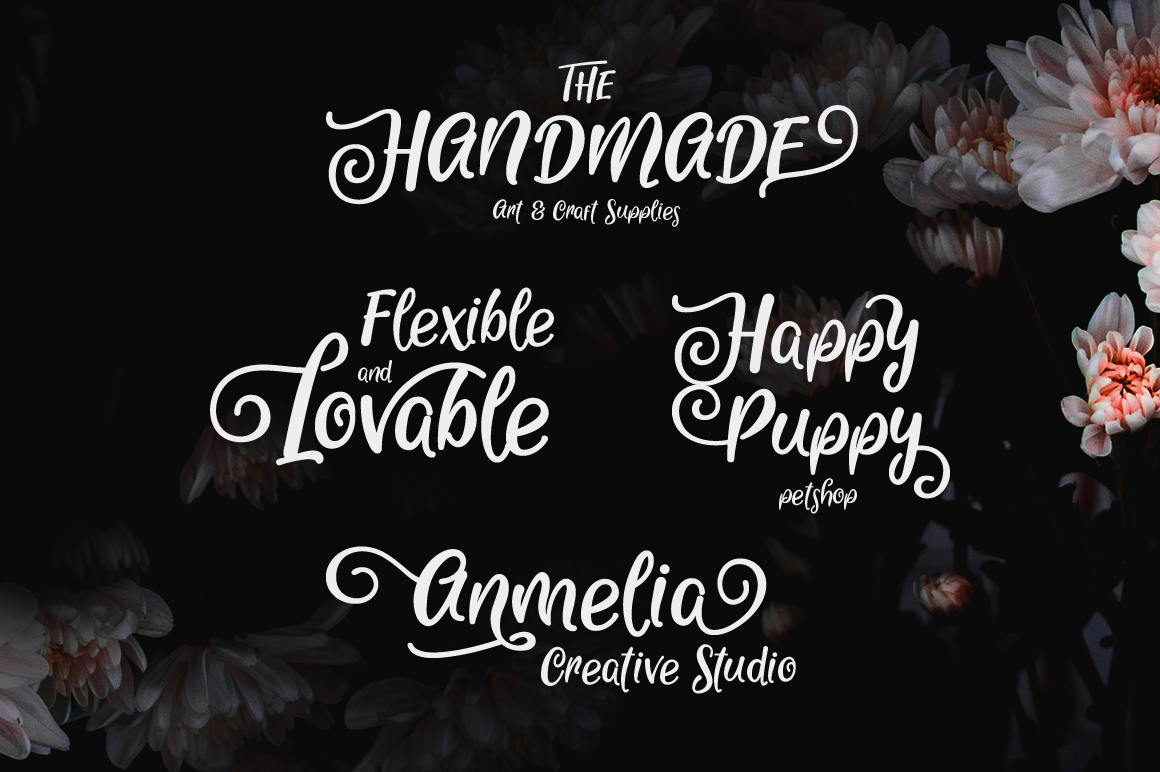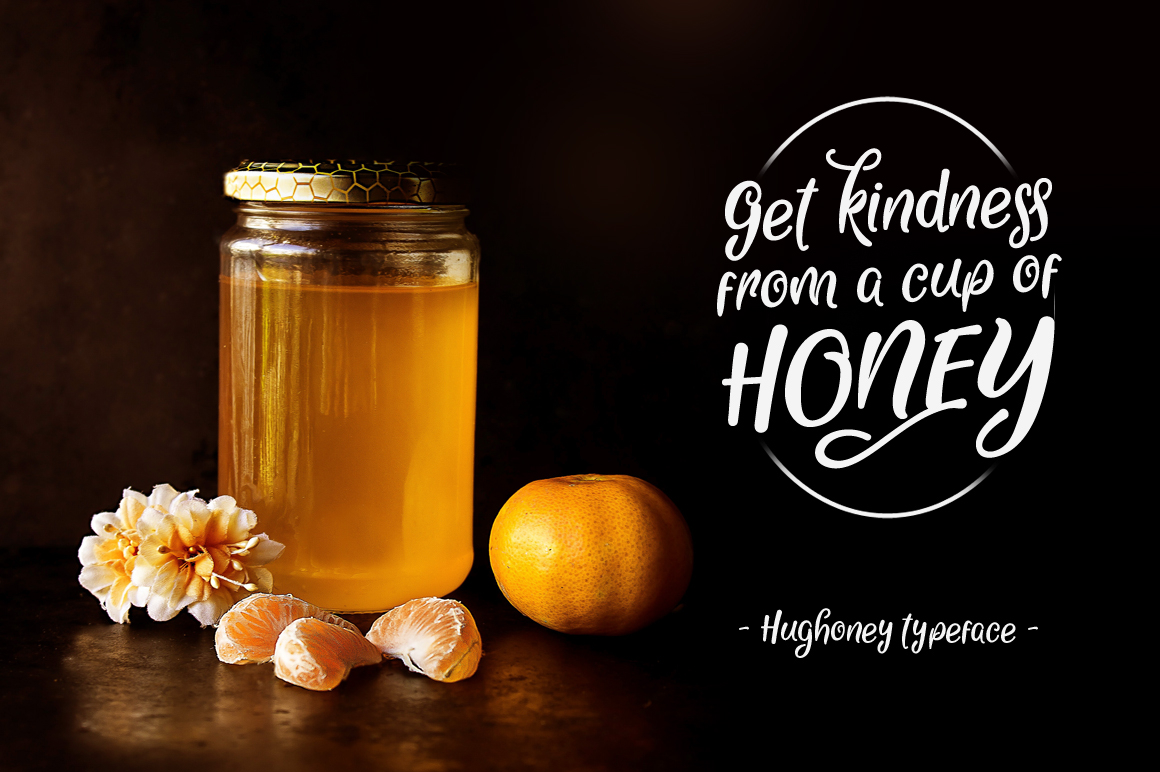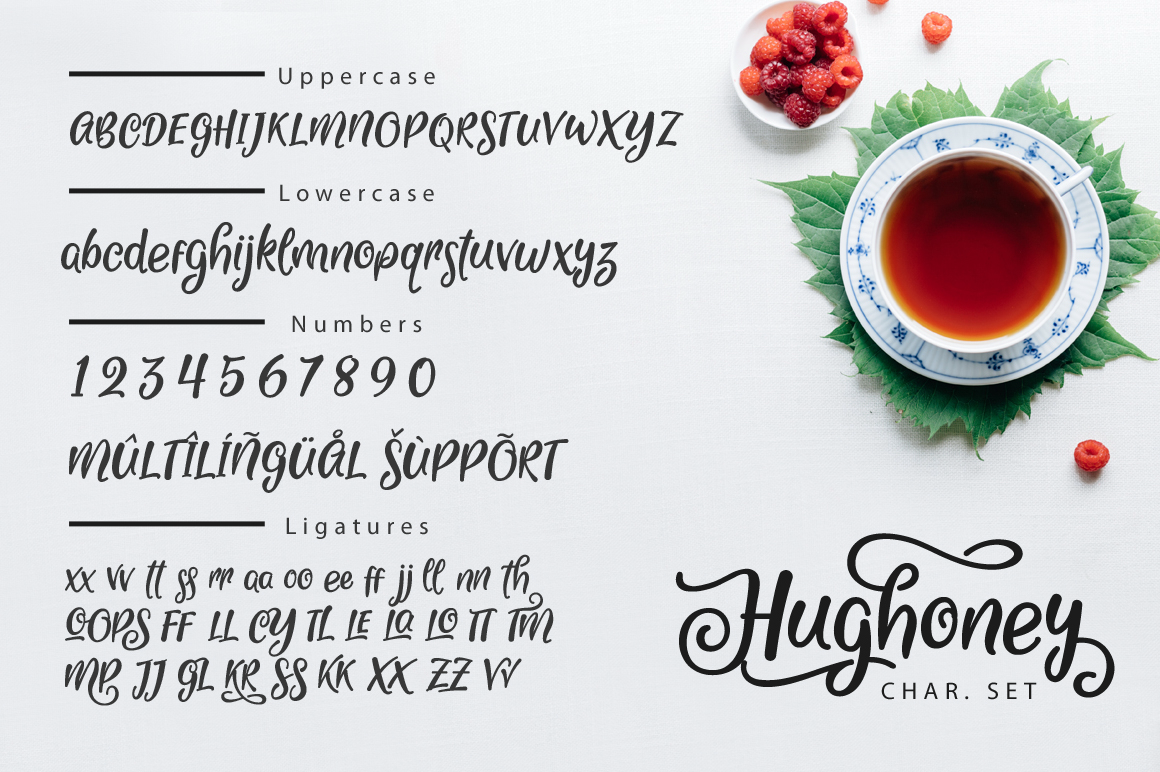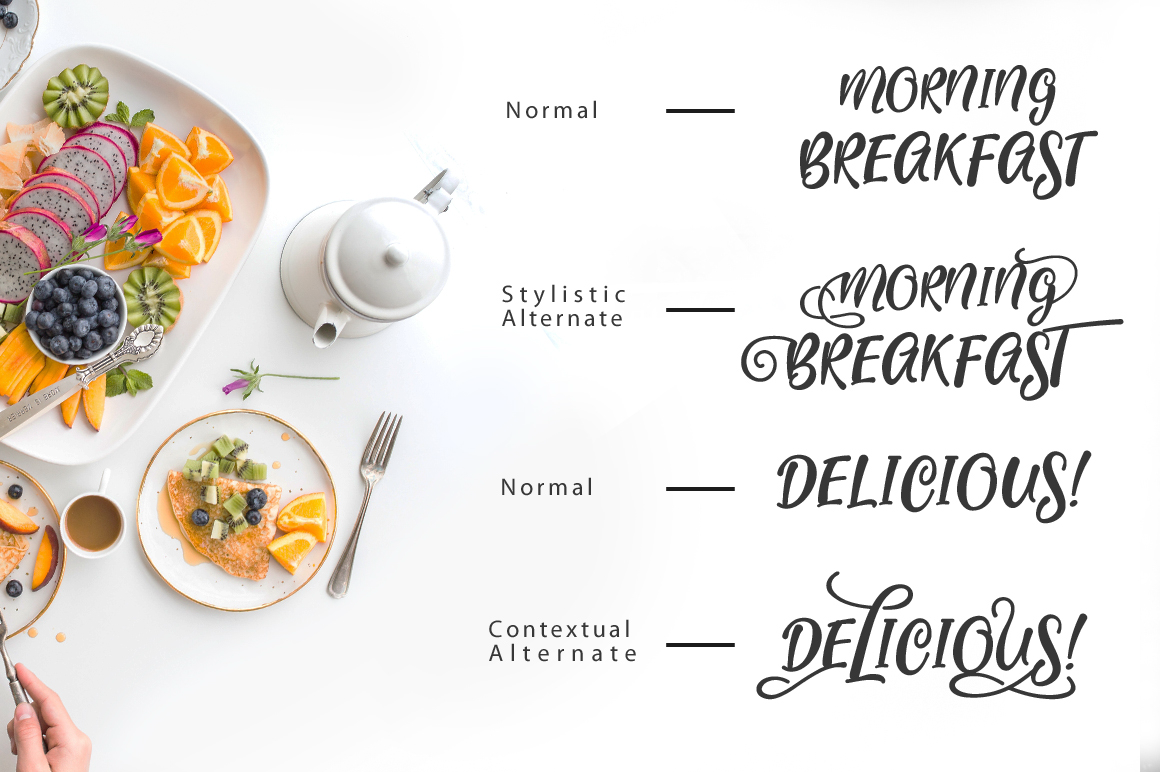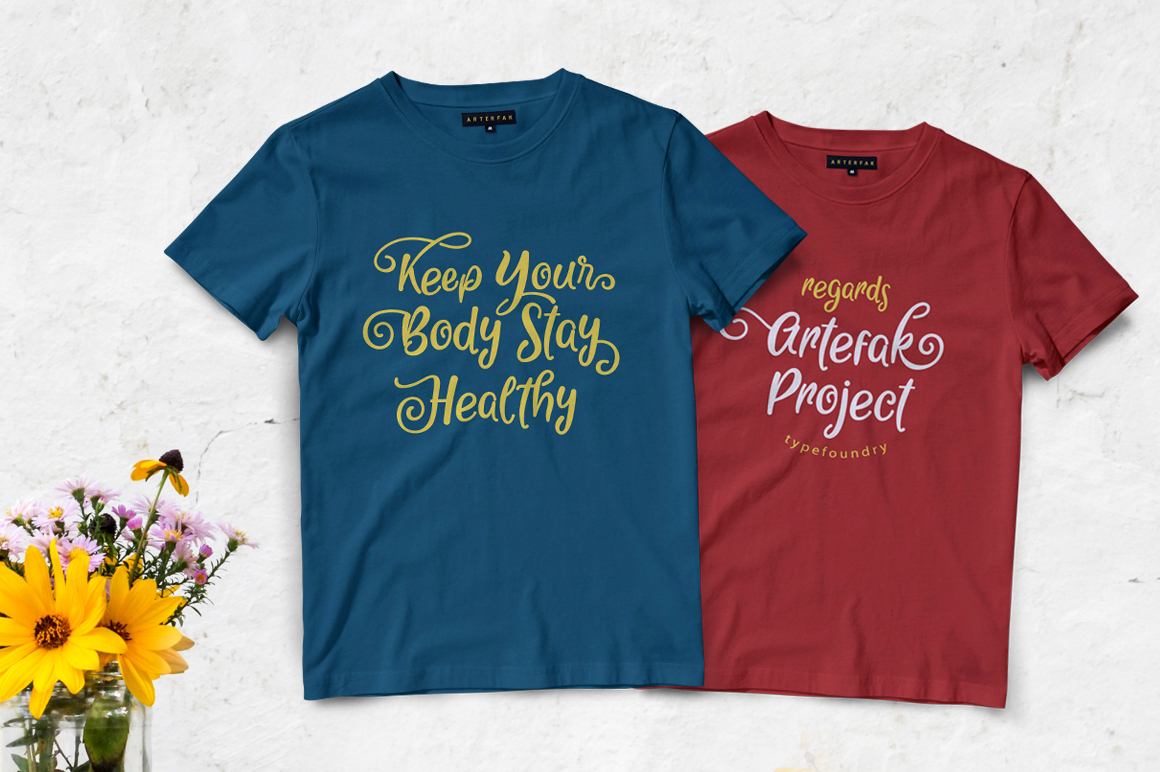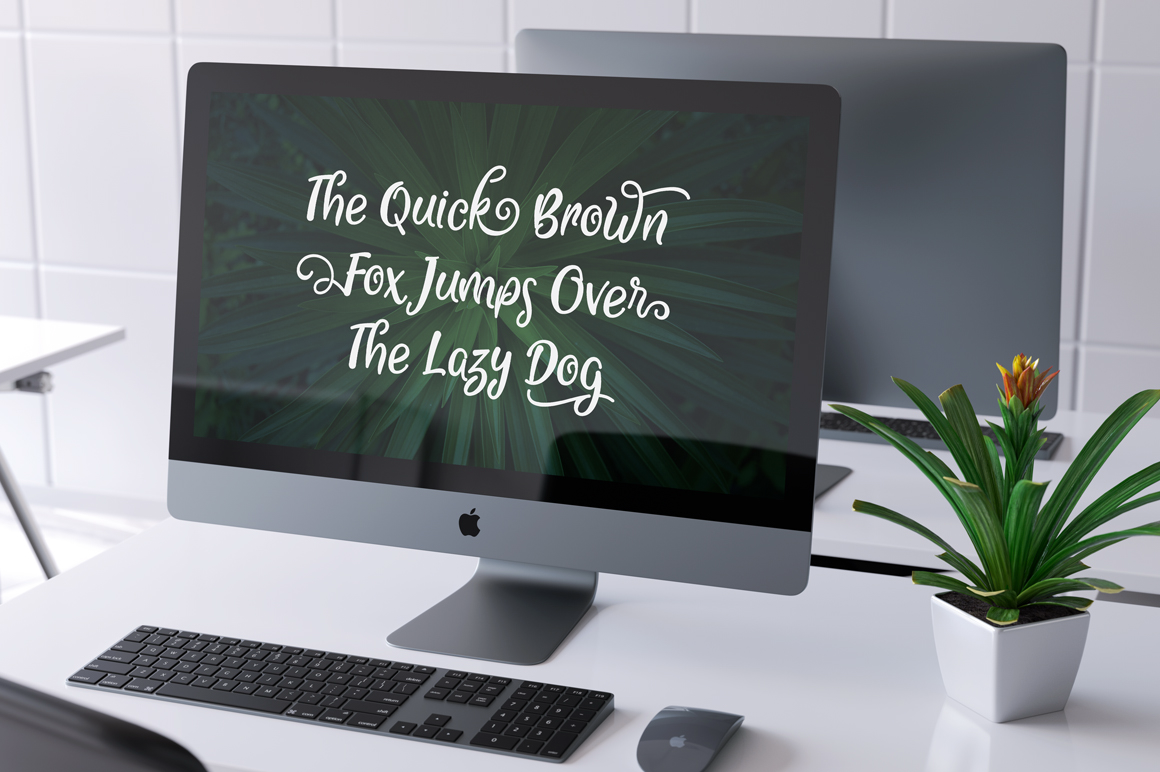
The Art of Unique Design: Introducing Hughoney Font
Have you ever stared at a blank canvas, trying to come up with the perfect idea for your next creative project? You’ve brainstormed, sketched, and experimented, but nothing seems quite right. It’s moments like these that remind us why we love design – the thrill of discovery, the rush of bringing a new idea to life.
That’s where the Hughoney Font comes in – a beautiful and elegant brush font designed to add a touch of sophistication to your creative endeavors. With its unique blend of freestyle script and creative randomization, this font is perfect for designers looking to give their projects a distinctive and reliable appeal. Whether you’re working on a branding project, a logo, or a digital art piece, the Hughoney Font is a valuable tool that can help you stand out from the crowd.
- Font Family: Hughoney Font is a script font family designed for elegant and creative typography.
- Unique Characteristics: The font features a unique blend of handwritten and calligraphic styles, with subtle flourishes and connecting strokes that add to its elegance and sophistication.
Honest Designer Review: Hughoney Font
First impressions are everything, and Hughoney Font certainly makes a statement. ✨ The bold and playful nature of this font is infectious, and it’s easy to see why it’s gained popularity among designers and creatives alike. ✨ The font’s unique blend of modern and vintage elements makes it a great choice for a wide range of projects, from branding and advertising to digital products and print materials.
- Unique blend of modern and vintage elements
- Playful and attention-grabbing
- Great for branding and advertising
- Fits well with a wide range of design styles
- Can be overwhelming in large quantities
- May not be suitable for formal or conservative projects
- Some characters may not render correctly in certain fonts or sizes
Overall, Hughoney Font is a great addition to any designer’s toolkit. While it may not be suitable for every project, its unique personality and high level of customization make it a versatile and valuable asset for creatives. With some careful consideration and planning, Hughoney Font can be used to create truly eye-catching and effective designs.
Getting the Most Out of Hughoney Font
For optimal results, use Hughoney Font in combination with elegant graphics and minimal backgrounds.
Experiment with different font sizes and styles to create visually appealing text effects.
Hughoney Font is ideal for:
- High-end product packaging and labels